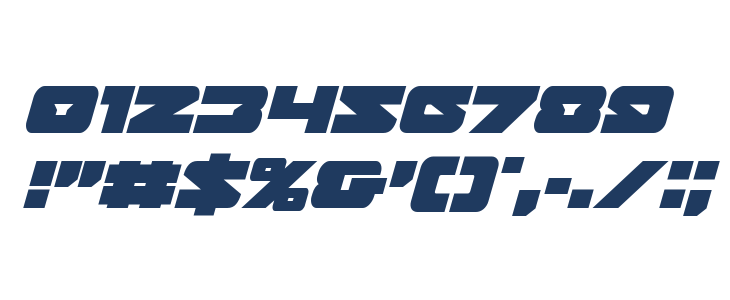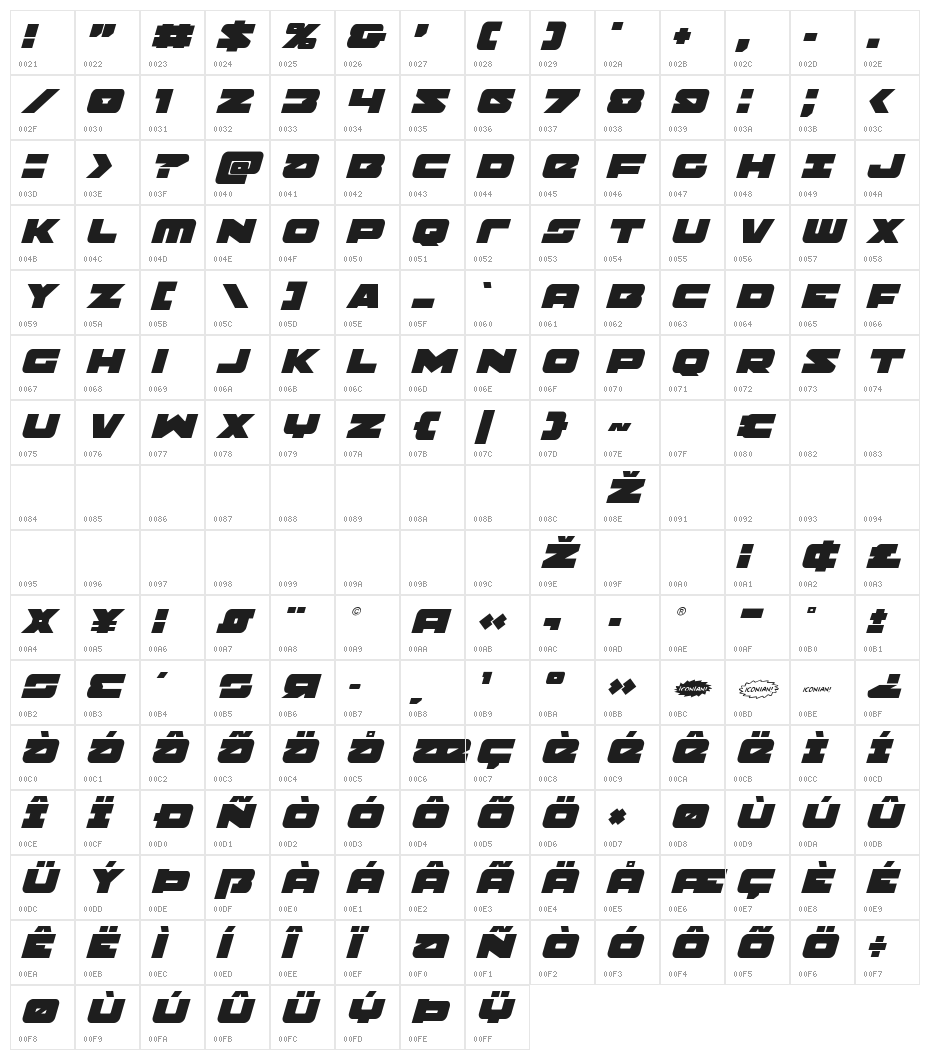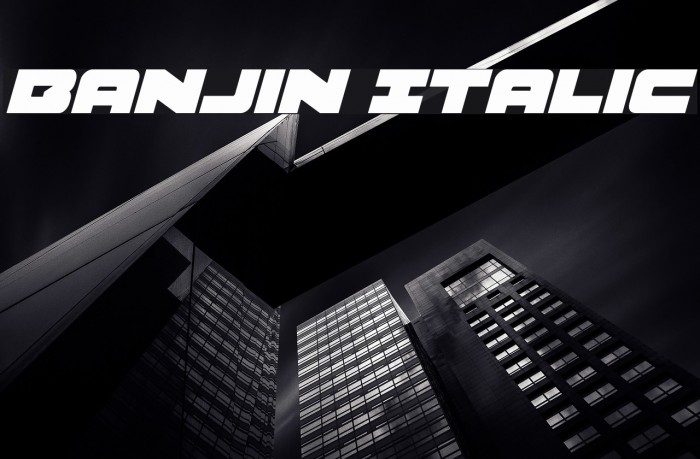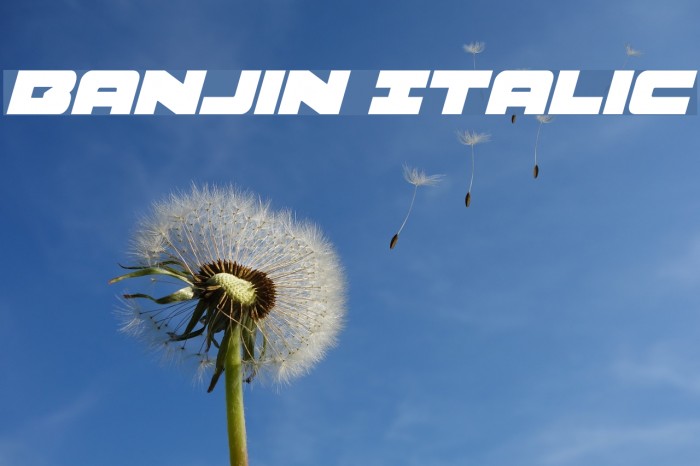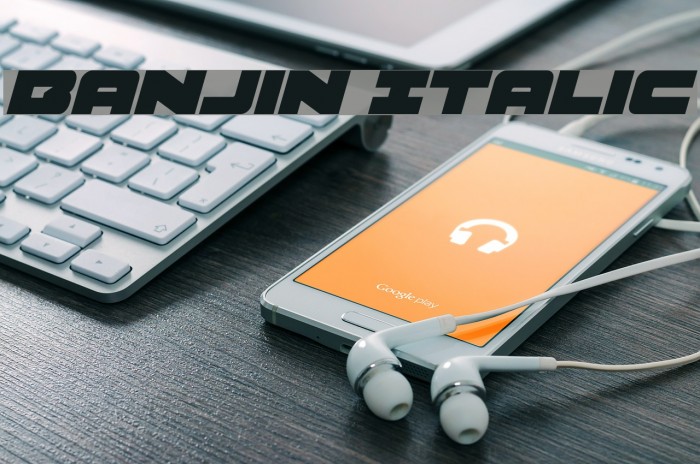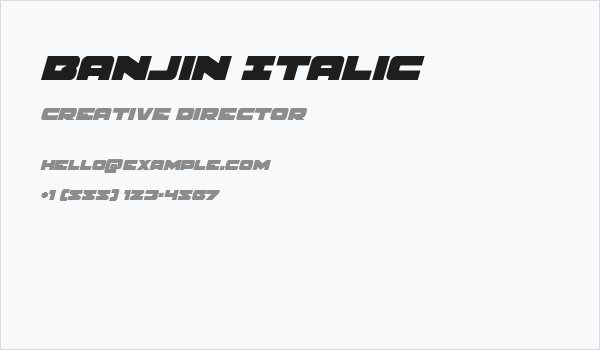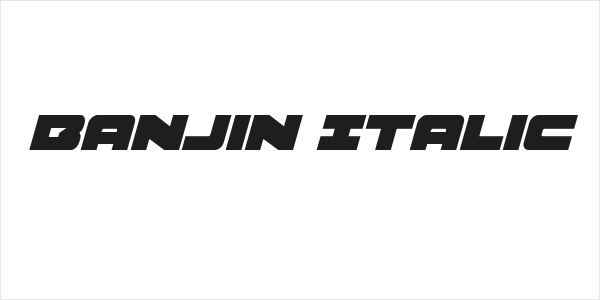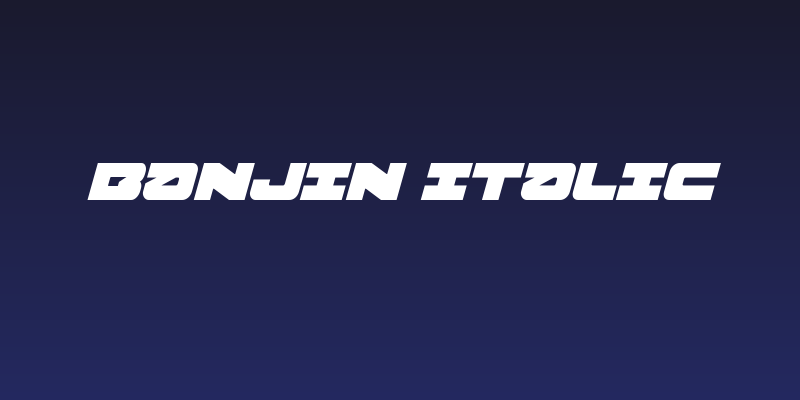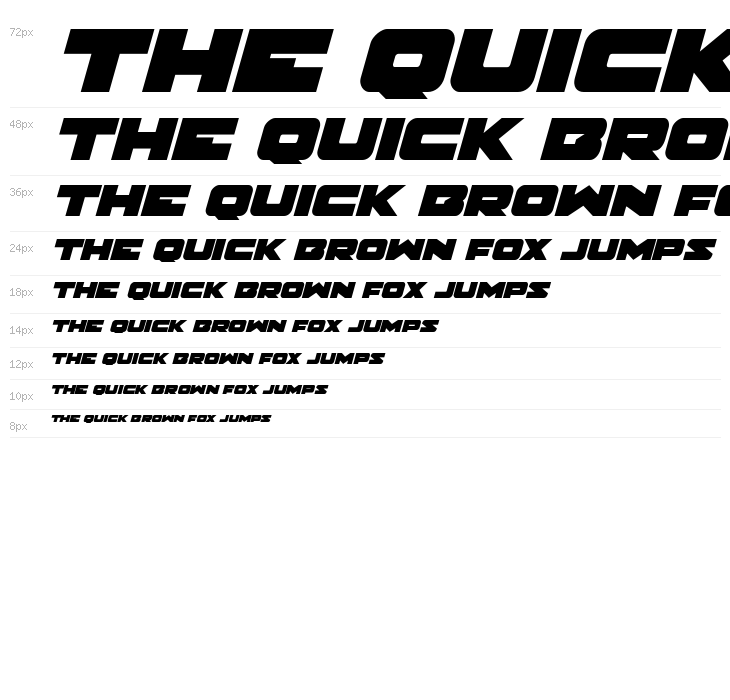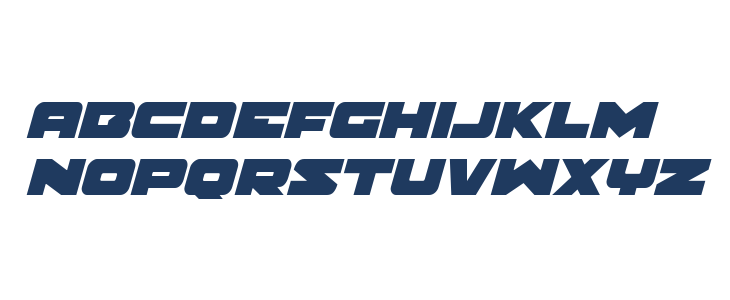
Banjin Italic Font
Banjin Italic Description
This font features a bold, italicized style with a strong, angular design. The characters are heavily slanted, giving a sense of motion and speed. Each letter is constructed with thick strokes and sharp edges, creating a dynamic and impactful appearance. The font maintains a consistent weight throughout, with a slight variation in stroke thickness that adds to its boldness. The character spacing is tight, enhancing the compact and cohesive look of the text. This font is ideal for projects that require a modern and energetic feel, such as sports branding, dynamic posters, or futuristic designs.
Proposed ProjectsIdeal for sports branding, dynamic posters, or futuristic designs.